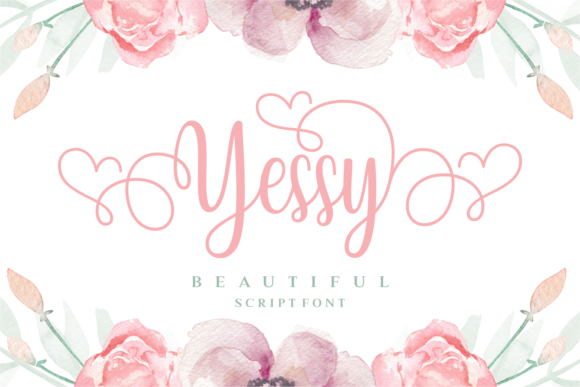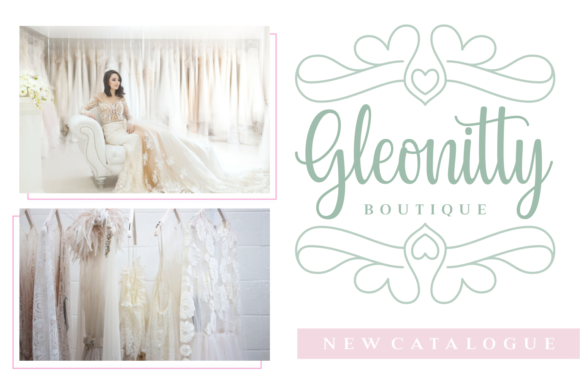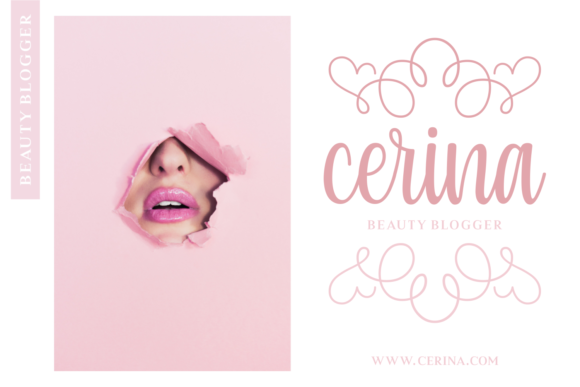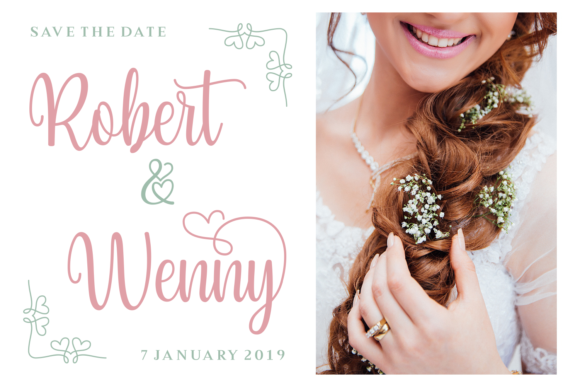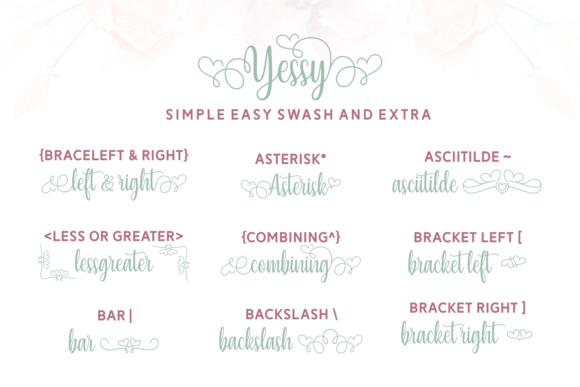
Yessy Font
About Yessy Font
Yessy is a beautiful script font. It’s full of glyphs and feminine swashes which makes it perfect for any design that needs an elegant feel.